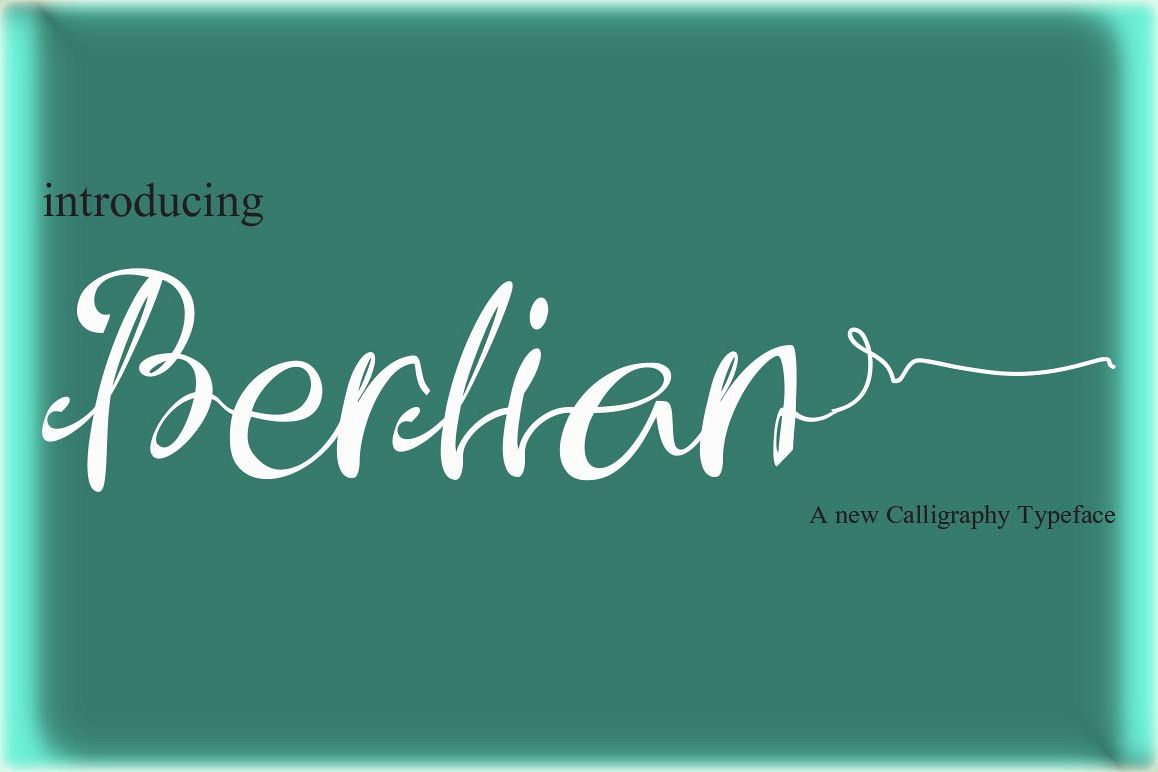
Created By Ryanstudio
Berlian
Berlian script is a calligraphy font style that features a different base, cut lines, classic and elegant touch. Can be used for various purposes.such as title, signature, logo, wedding invitations, t-shirts, letterhead, signage, labels, newsletters, posters, badges etc.
Languages supported: Breton, Catalan, Czech, Danish, Estonian,French, German, Hungarian, Icelandic, Italian, Romanian, Scottish Gaelic, Slovak, Latvian, Lithuanian, Norwegian, English, Finnish, Polish, Portuguese, Slovenian, Spanish, Swedish, Turkish, Welsh. Basically, all european languages that are based on latin alphabet.